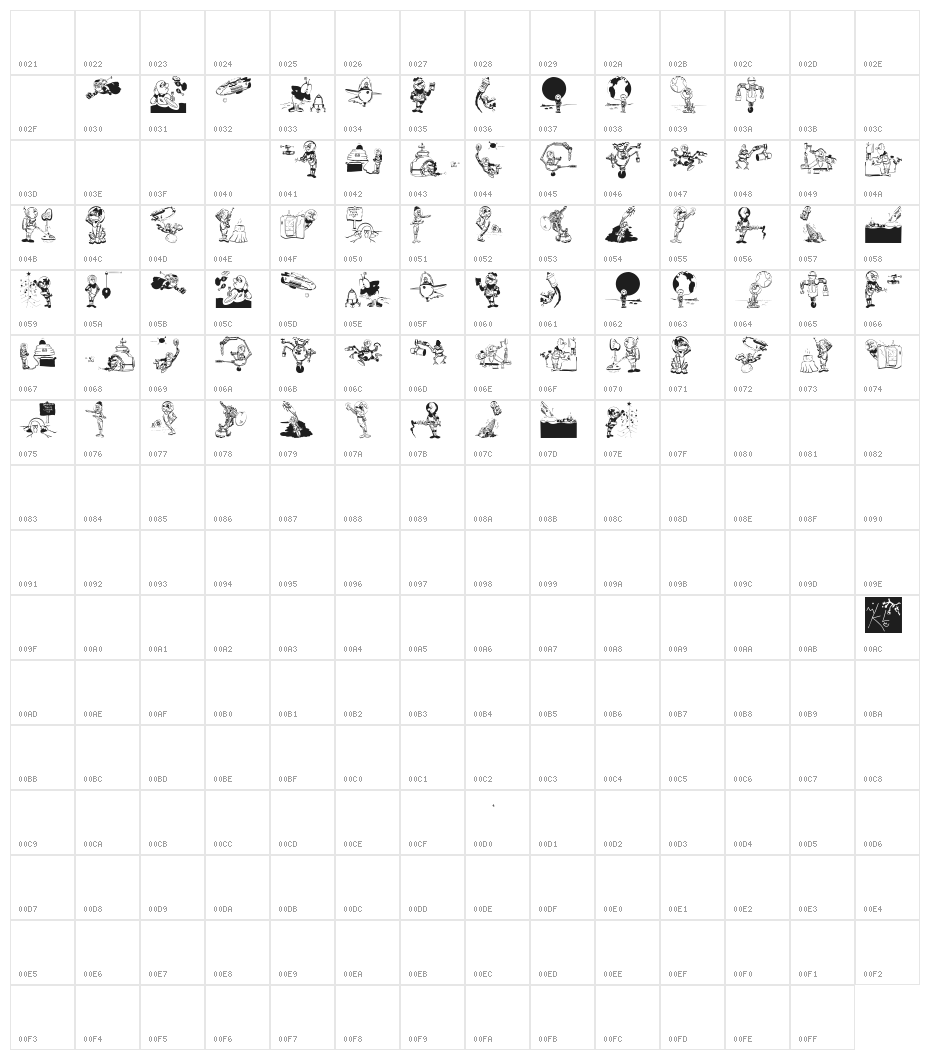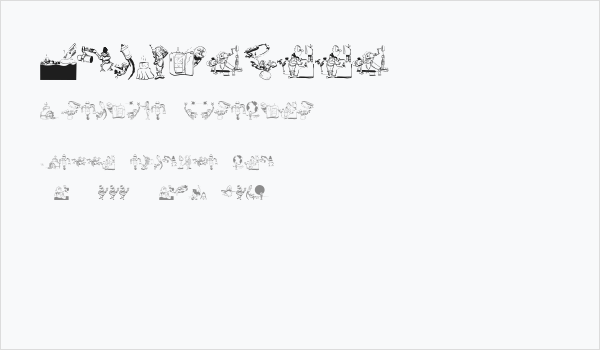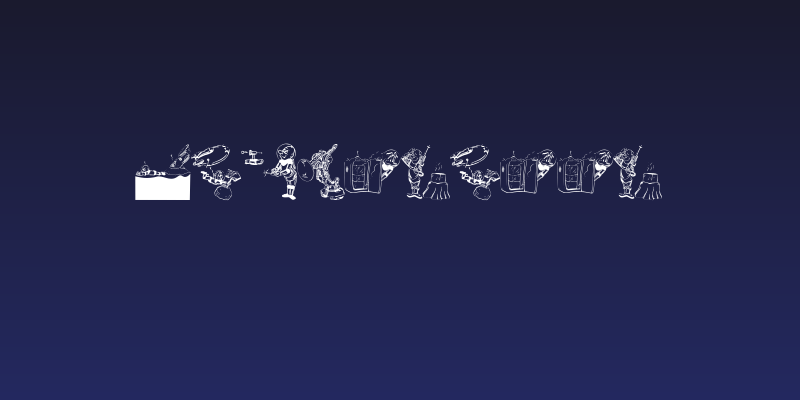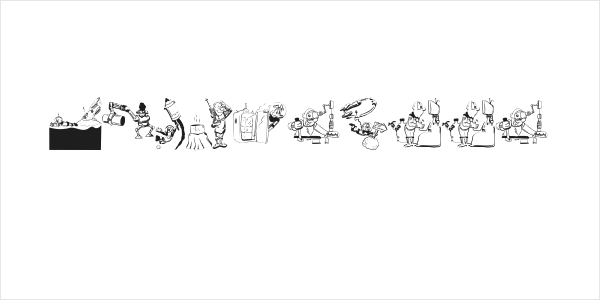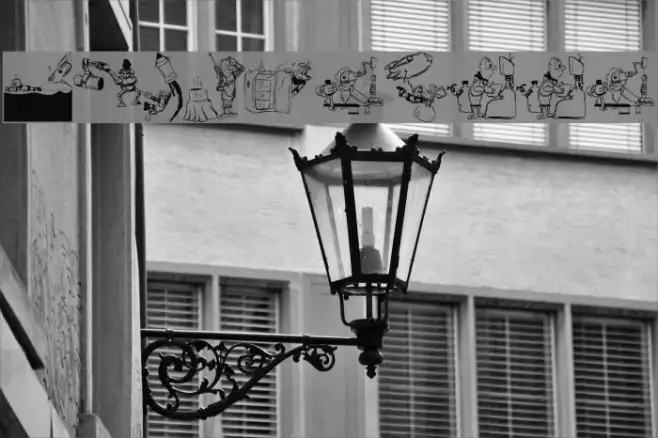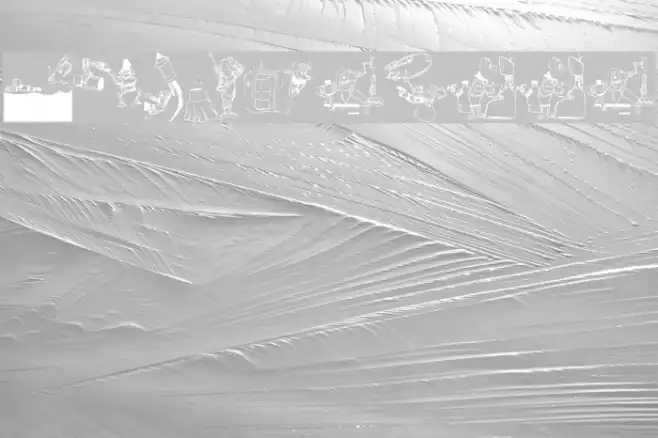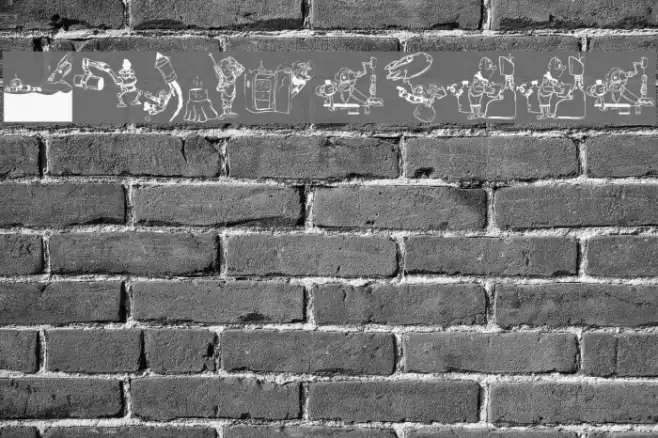
XmasOnMoon Font
XmasOnMoon Description
A highly decorative and whimsical font composed of playful cartoon illustrations, each character represented by a unique space or Christmas-themed drawing with exaggerated, humorous features and dynamic poses.
| Overall Style | Decorative, Whimsical, Playful |
| Use Case | Headlines, Posters, Greeting cards, Themed event materials |
| Proposed Projects | Holiday cards, children's books, party invitations, themed posters, novelty merchandise. |